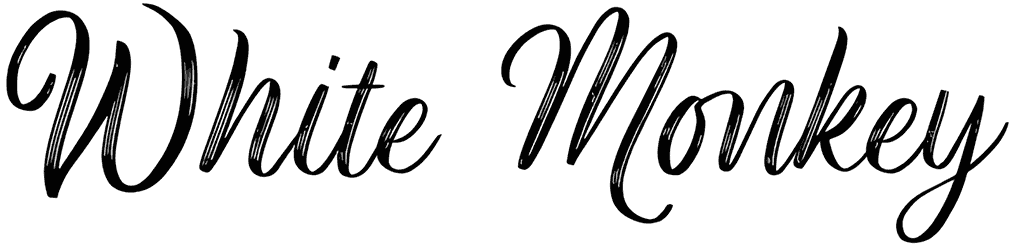
White Monkey Font
White Monkey is useful for designers who are interested in the classic look and old twists in calligraphy fonts and want to implement their ideas in the best possible way without using visual decorative elements.
This handwritten font, which is designed based on the ethics of a professional brush, is an example of a strong font in your collection that can shine in many projects. Therefore, you can get help from this brush font when designing a website or poster for exhibitions.